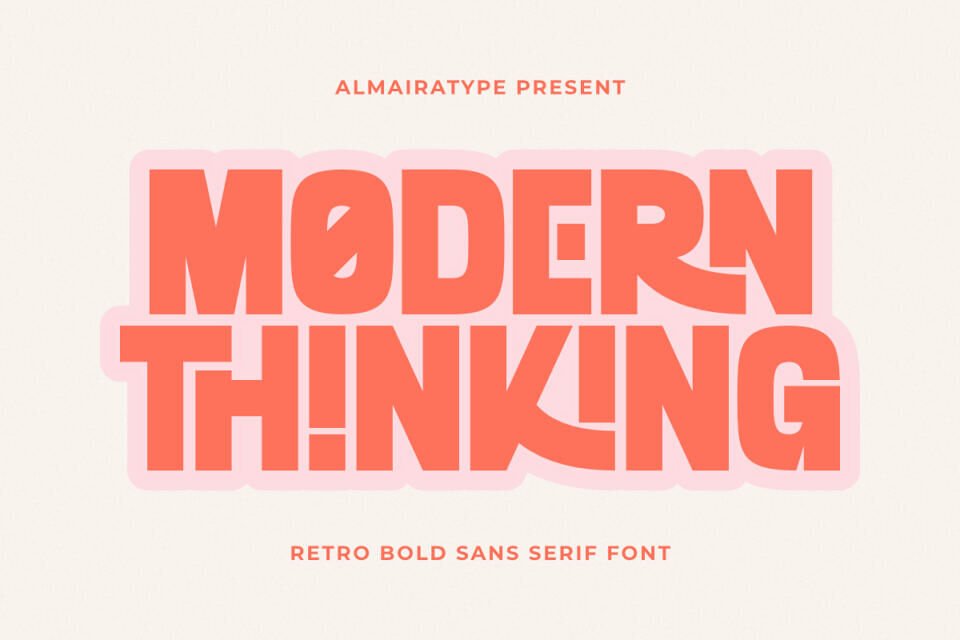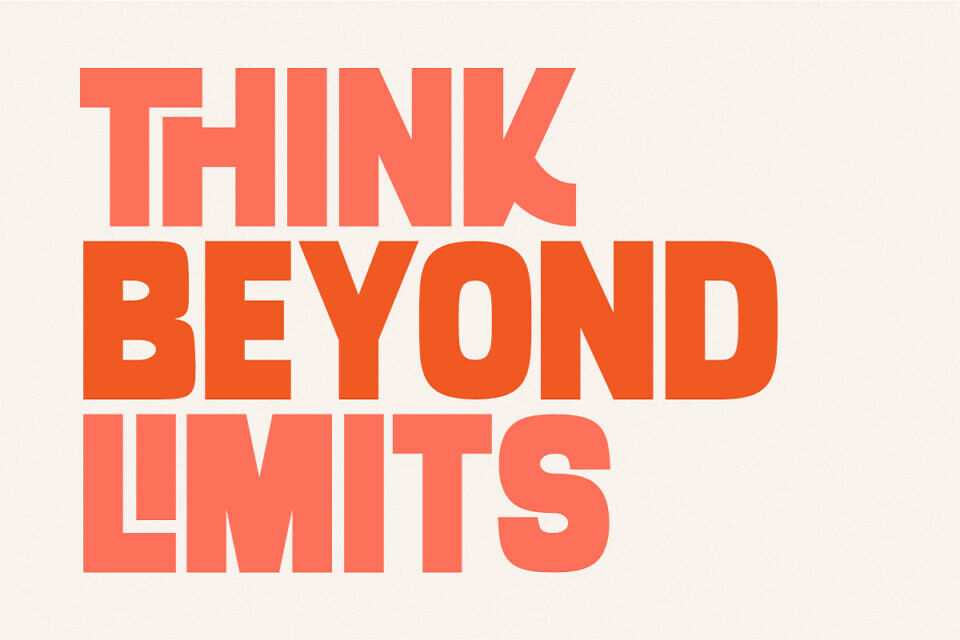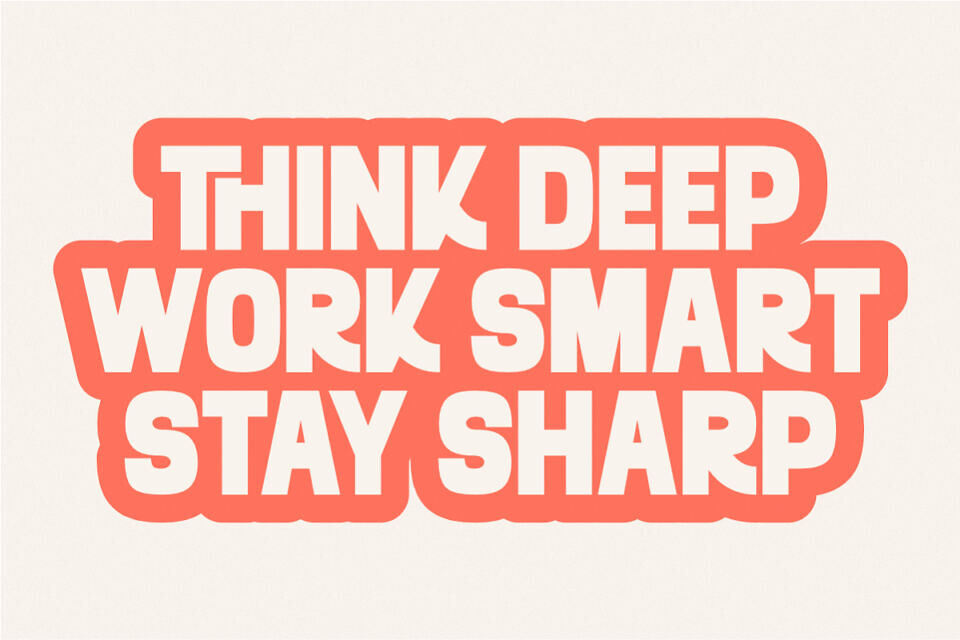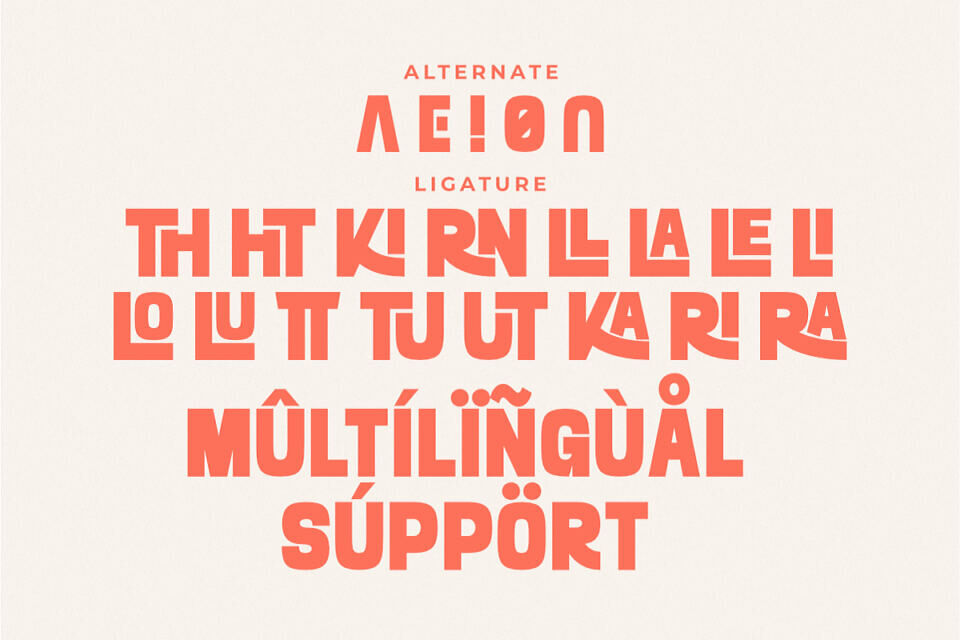
Modern Thinking Font
Modern Thinking is a bold retro sans serif font creatively uniquely designed to bring a playful yet impactful vintage aesthetic to your modern design projects. Featuring a chunky weight, solid geometric structural balance, and eye-catching custom alternate characters, this typeface perfectly bridges the gap between classic 70s nostalgia and contemporary streetwear design.
Whether you are building a bold brand identity, designing trendy t-shirt collections, curating standout packaging, or producing striking social media posters, Modern Thinking ensures outstanding legibility and a distinct artistic edge.